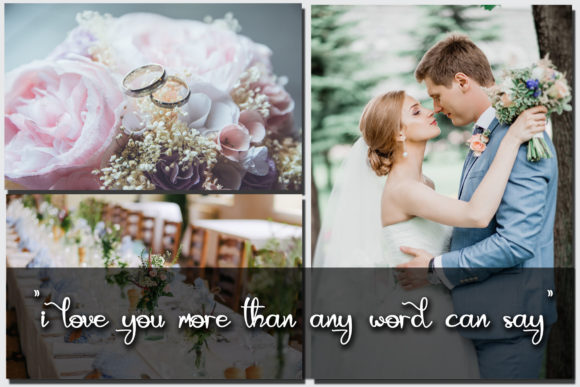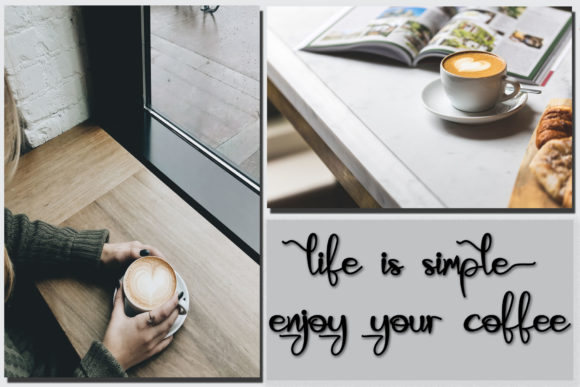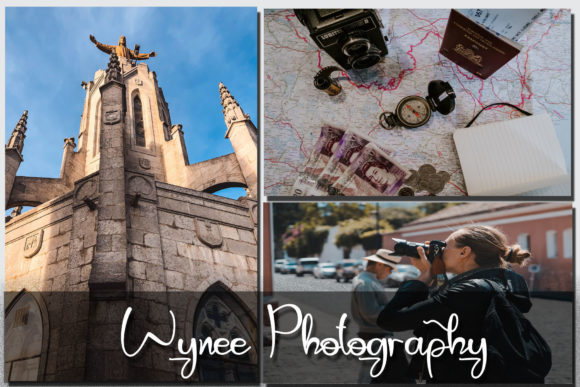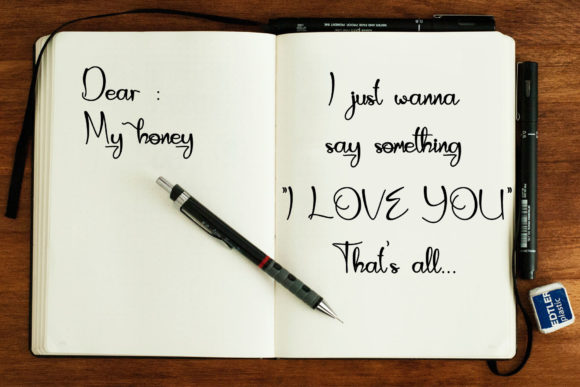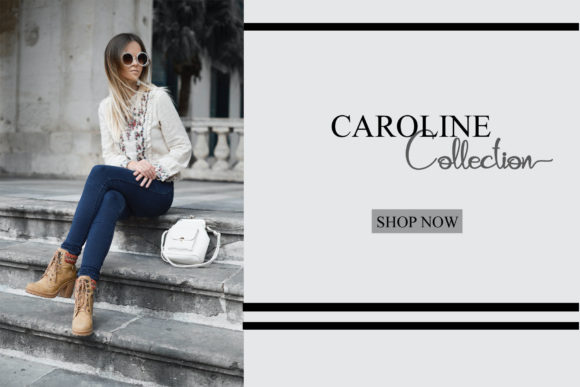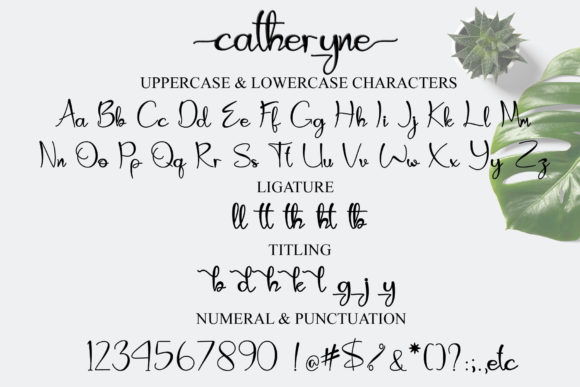
A Touch of Whimsy: Unveiling the Magic of Catheryne Font
Have you ever stared at a blank sheet of paper, waiting for inspiration to strike? For many creatives, it’s that moment when the perfect font comes along that sets the spark flying. For us, it’s the moment we discovered Catheryne Font – a romantic and sweet calligraphy typeface that makes our hearts skip a beat. Its characters dance along the baseline, exuding a luxury and elegance that’s hard to resist.
Whether you’re designing a wedding invitation, a luxury brand’s logo, or a romantic novel’s cover, Catheryne Font is the perfect companion to bring your vision to life. Its PUA encoded features make it a breeze to access the amazing glyphs and ligatures that will elevate your design project to new heights. With Catheryne Font, you’ll be able to add a touch of sophistication and whimsy to your creations, making them truly unforgettable.
- Unique Characteristics: Elegant script with a mix of calligraphic and handwritten elements, suitable for invitations, wedding cards, and other formal events
Catheryne Font Review
Overall, I’d say the Catheryne Font is a beautiful, elegant script font that’s perfect for adding a touch of sophistication to your designs. ✨ Here are a few things that really stand out to me:
- ✨ Elegant connections between letters: The flowing connections between letters in the Catheryne Font are a true standout. They add a level of cohesion and fluidity to the font that makes it a joy to read.
- ✨ Versatility: Whether you’re using the font for body text, headings, or even logos, Catheryne Font adapts seamlessly to each application.
- ✨ High-quality renderings: The font’s renderings are crisp and clear, making it perfect for use in a variety of mediums, from digital to print.
However, like any font, the Catheryne Font isn’t without its limitations. ⚠️ Here are a few things to keep in mind:
- ⚠️ Limited character set: While the font includes a wide range of characters, it’s not quite as comprehensive as some other fonts on the market.
- ⚠️ Some characters may be difficult to read at small sizes: While the font’s connections are a major strength, they can also make some characters harder to read at very small sizes.
Overall, I’m really impressed with the Catheryne Font. It’s a beautiful, elegant font that’s perfect for designers looking to add a touch of sophistication to their projects. While it’s not without its limitations, I think it’s well worth considering for a wide range of applications.
Use Catheryne Font for titles, headings, and other text elements that need a touch of elegance and sophistication.
Combine Catheryne Font with other fonts to create a unique and visually appealing design.
Playfair Display is an elegant and luxurious serif font. It’s perfect for use in high-end branding, magazine titles, and advertisements. This font is ideal for designers who want to convey sophistication and refinement. In comparison to Catheryne Font, Playfair Display has a more classic and traditional feel, while Catheryne Font has a more modern and minimalist look.
Great Vibes is a modern and elegant script font. It’s great for use in wedding invitations, event branding, and creative packaging. This font is ideal for designers who want to add a touch of elegance and sophistication to their designs. In comparison to Catheryne Font, Great Vibes has a more flowing and cursive feel, while Catheryne Font has a more geometric and modern look.